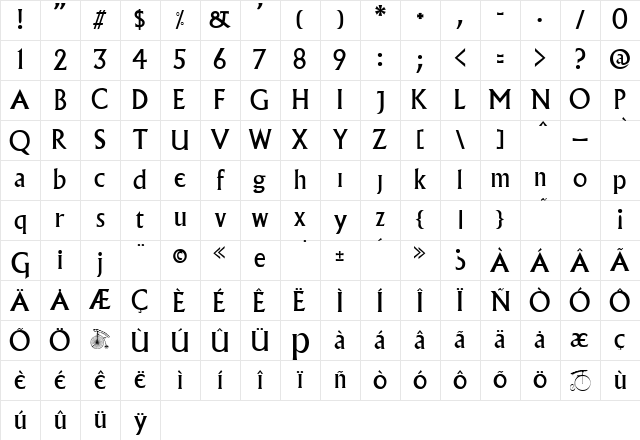
Village Regular Free Font
Village Regular
Village Family
Complete Village Regular glyph index. Displaying only characters natively supported by Village Regular font.
Design Context for Village
Village is a composed and adaptable typeface that performs quietly and consistently across a wide range of design contexts.